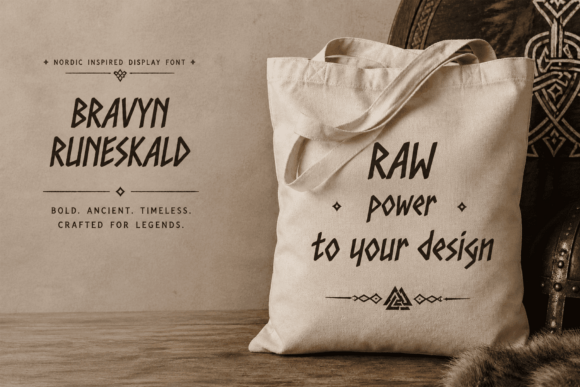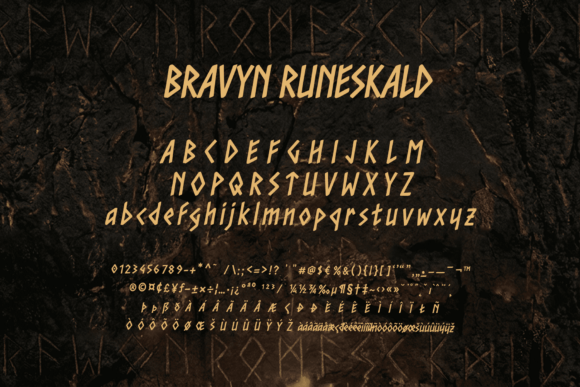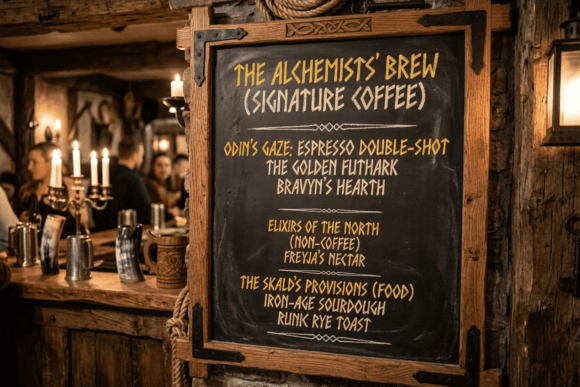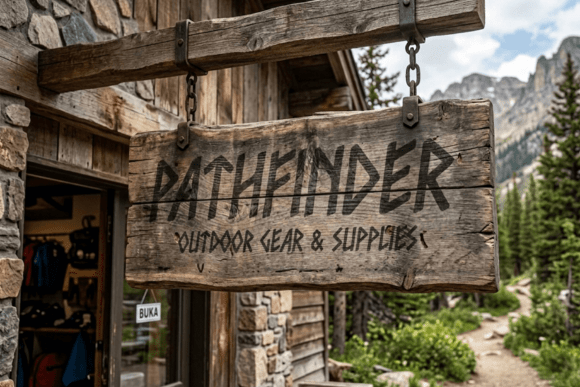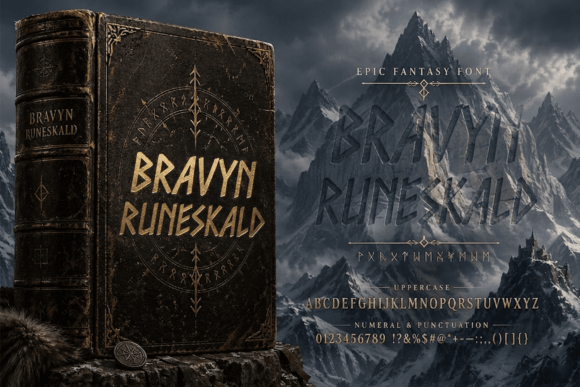
The Font That Demands Attention
You know that moment when an idea strikes you, and you can almost feel the creative energy coursing through your veins? It’s a rush of adrenaline, a spark of inspiration that sets your imagination ablaze. For designers, this moment is the holy grail – the moment when everything comes together, and your vision takes shape. And that’s exactly what Bravyn Runeskald Font is designed to ignite.
This bold, handcrafted font is not just a tool, but a statement piece that demands attention. Inspired by ancient runic markings and handwritten strokes, Bravyn Runeskald Font captures the raw power and untamed character that sets it apart from the rest. Whether you’re building a logo, creating a poster, or crafting a game title, this font is the perfect companion to help you make your mark. It’s a game-changer for designers who want their work to stand out from the crowd.
Bravyn Runeskald Font Key Features
- Font Family: Bravyn Runeskald is a fantasy font designed to evoke a sense of ancient runes and mysticism.
- Unique Characteristics: Bravyn Runeskald features intricate, hand-drawn designs and ornaments, making it an ideal choice for fantasy and medieval-themed projects.
Bravyn Runeskald Font Review
At first glance, the Bravyn Runeskald font caught my attention with its unique blend of fantasy and medieval elements. The font is a great choice for those looking to create a mystical or magical atmosphere in their designs. ✨ The intricate details and ornamentation in the font make it a standout among other fantasy fonts.
One of the things that I love about the Bravyn Runeskald font is its versatility. It can be used for a variety of projects, from book covers to posters and even digital art. ✨ The font comes in multiple weights, making it easy to adjust the design to fit your needs. Additionally, the font is highly legible, making it a great choice for text-heavy designs.
While the Bravyn Runeskald font is a great choice for fantasy designs, it may not be the best option for more modern or minimalist designs. ⚠️ The font’s ornate details may be too much for some designs, and the font may not be as effective in smaller sizes.
The Bravyn Runeskald font is a unique and versatile font that is perfect for fantasy and medieval-themed designs. While it may have some limitations, the font’s intricate details and high legibility make it a great choice for designers looking to create a magical atmosphere in their designs.
- Unique blend of fantasy and medieval elements
- Highly legible and versatile
- Intricate details and ornamentation
- Multiple weights available
Getting the Most Out of Bravyn Runeskald Font
Bravyn Runeskald Font is best used for creating bold, dramatic, and fantasy-inspired designs.
Use it for titles, headings, and other emphasis text to add a touch of elegance and sophistication to your project.
Experiment with different font sizes, colors, and combinations to create unique and eye-catching designs.
Bravyn Runeskald Font is commonly used in:
1. Fantasy and science fiction book